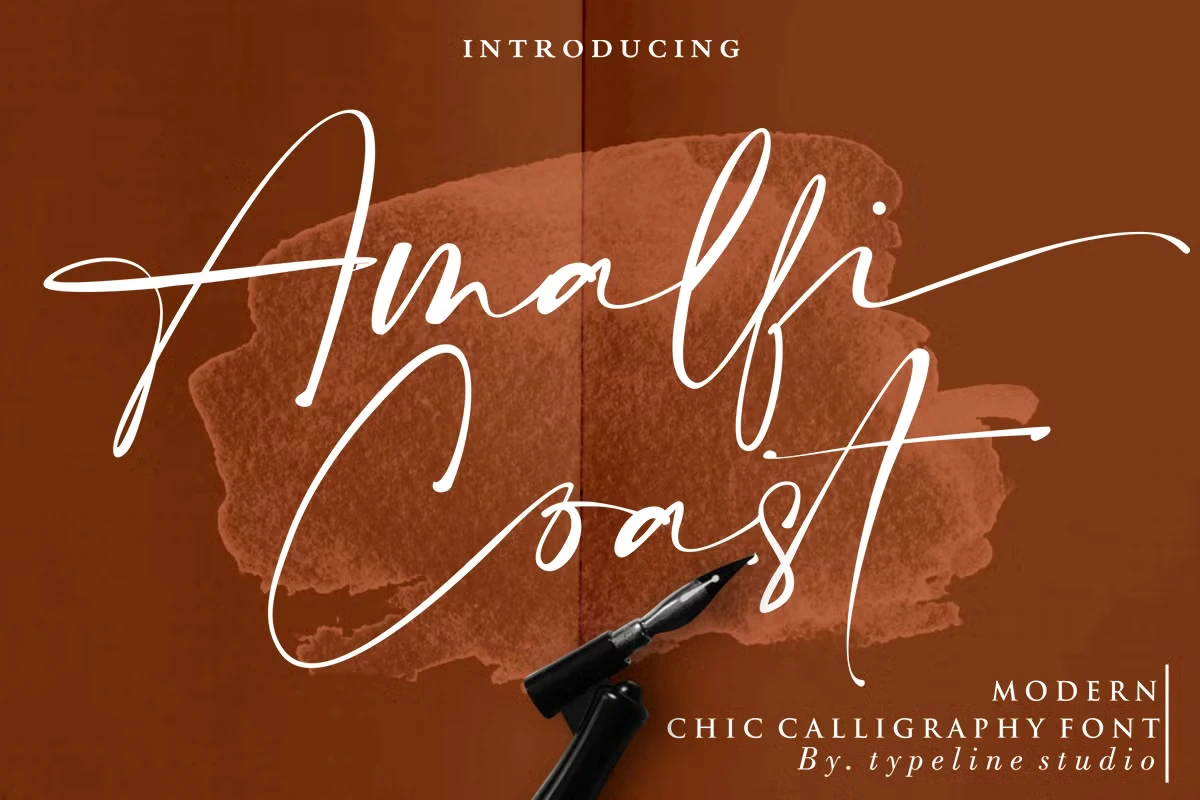
Amalfi Coast Font
Amalfi Coast is a modern, chic calligraphy font with a glamorous and elegant touch. Designed to bring sophistication to any project, this font is perfect for creating unique logos, photography watermarks, wedding invitations, and stylish branding signatures. Its handcrafted design adds a personal and artistic feel, making it an excellent choice for initials, monograms, or luxury brand aesthetics.
This Amalfi Coast script font includes a full set of beautifully designed uppercase and lowercase letters, numerals, and a wide range of symbols and ligatures. Each lowercase letter features both initial and final swashes, giving it a natural handwritten look. Additionally, the pack comes with BOOWIE, a trendy serif font, providing versatility for various design needs. Available in OTF, TTF, and WOFF formats, Amalfi Coast supports OpenType features, accessible in software like Adobe Illustrator, Photoshop, InDesign, and Corel Draw. If your program lacks a Glyphs panel, additional swash font files ensure seamless usability.